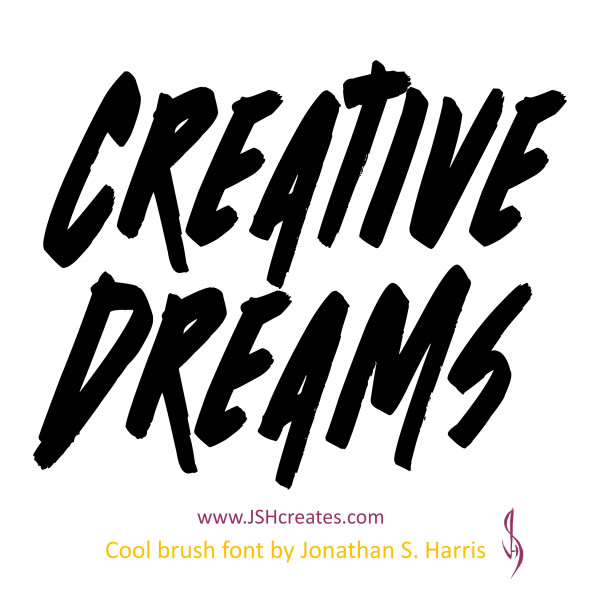
Creative Dreams Font
Creative Dreams Font is cool hand-written brush font. . Perfect for advertising purposes, including invitation cards, book covers, shirts, posters, logos and much more!
Font includes all alphabet letters, numbers, punctuation, accents and euro characters.